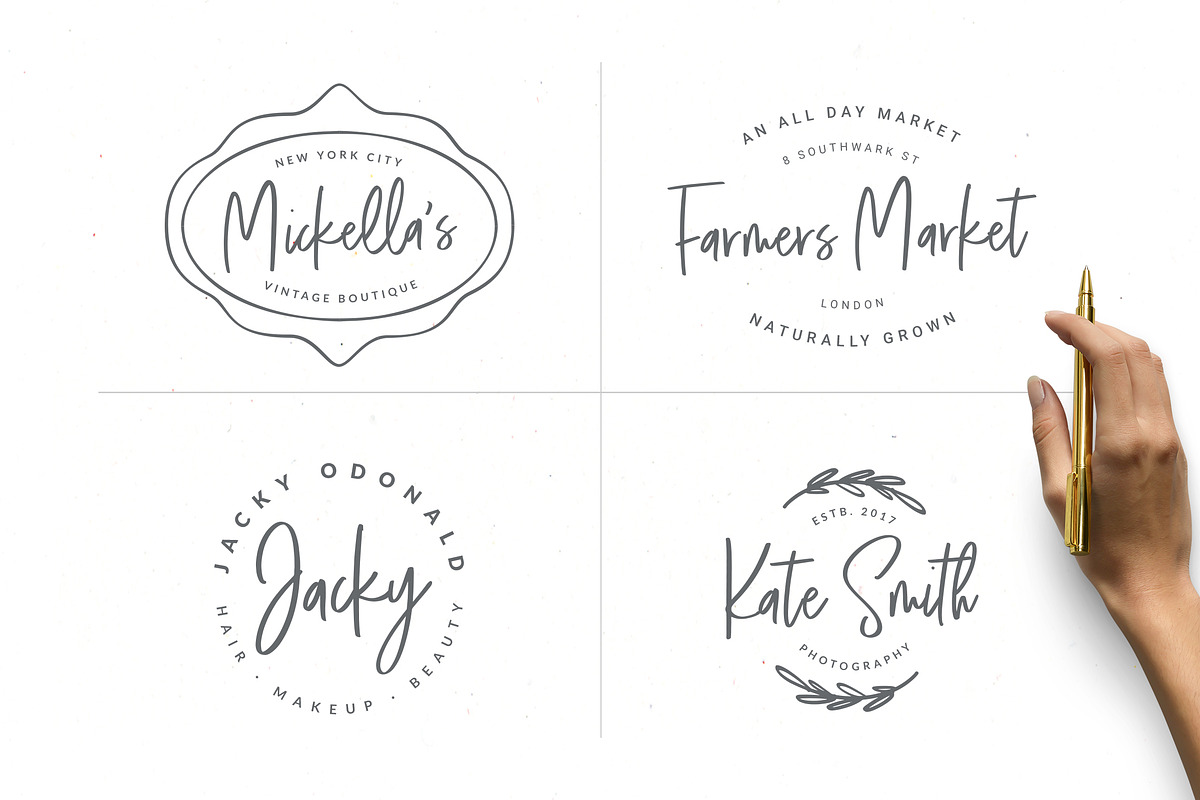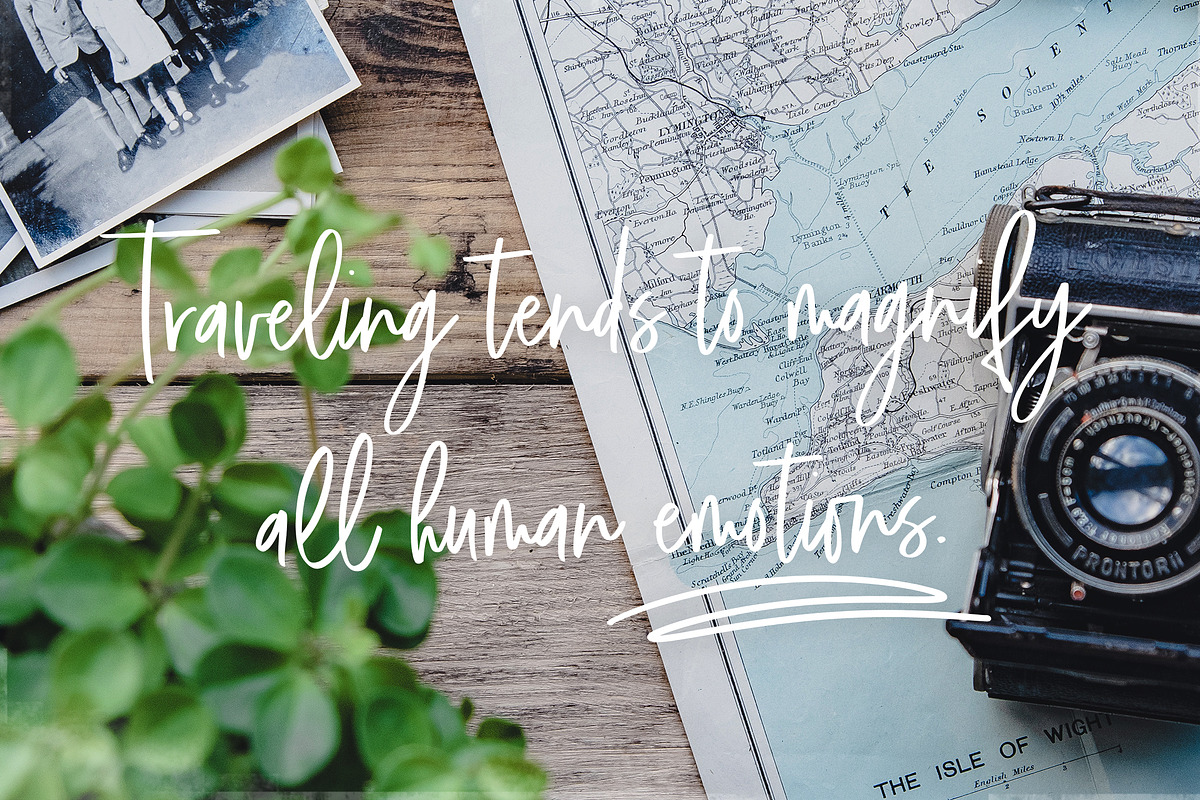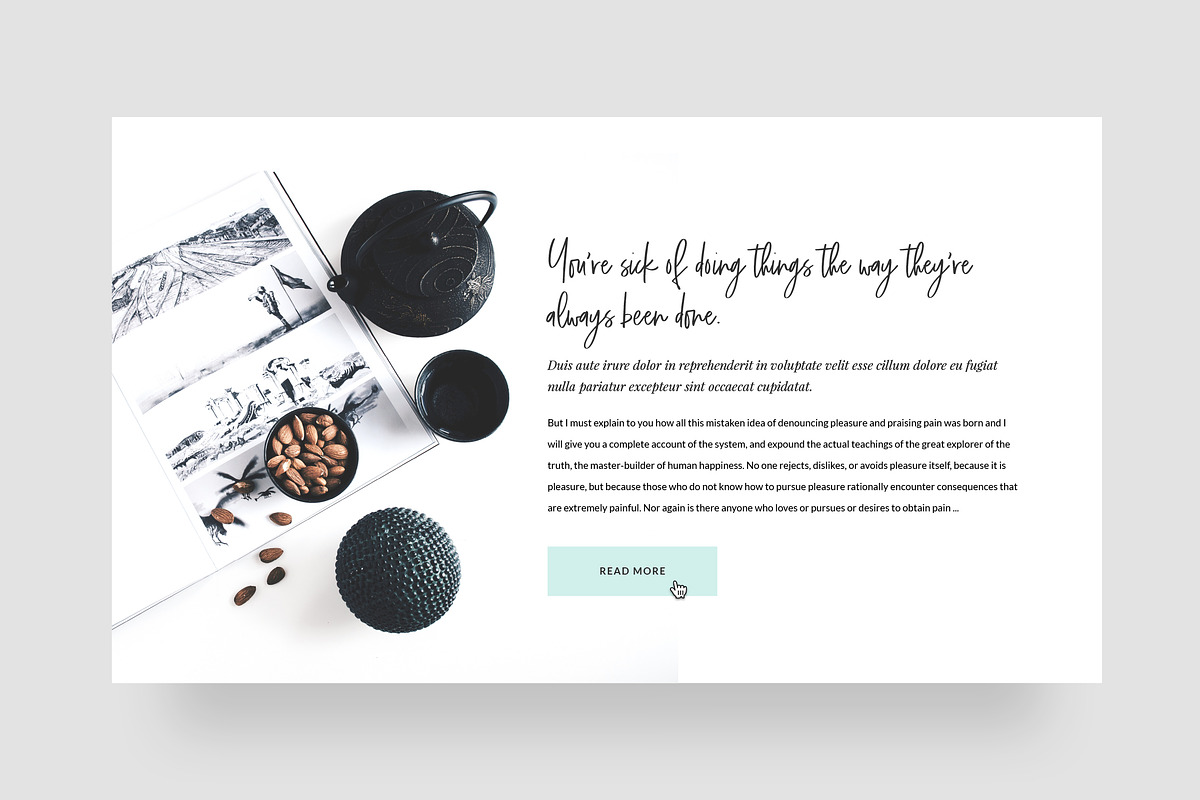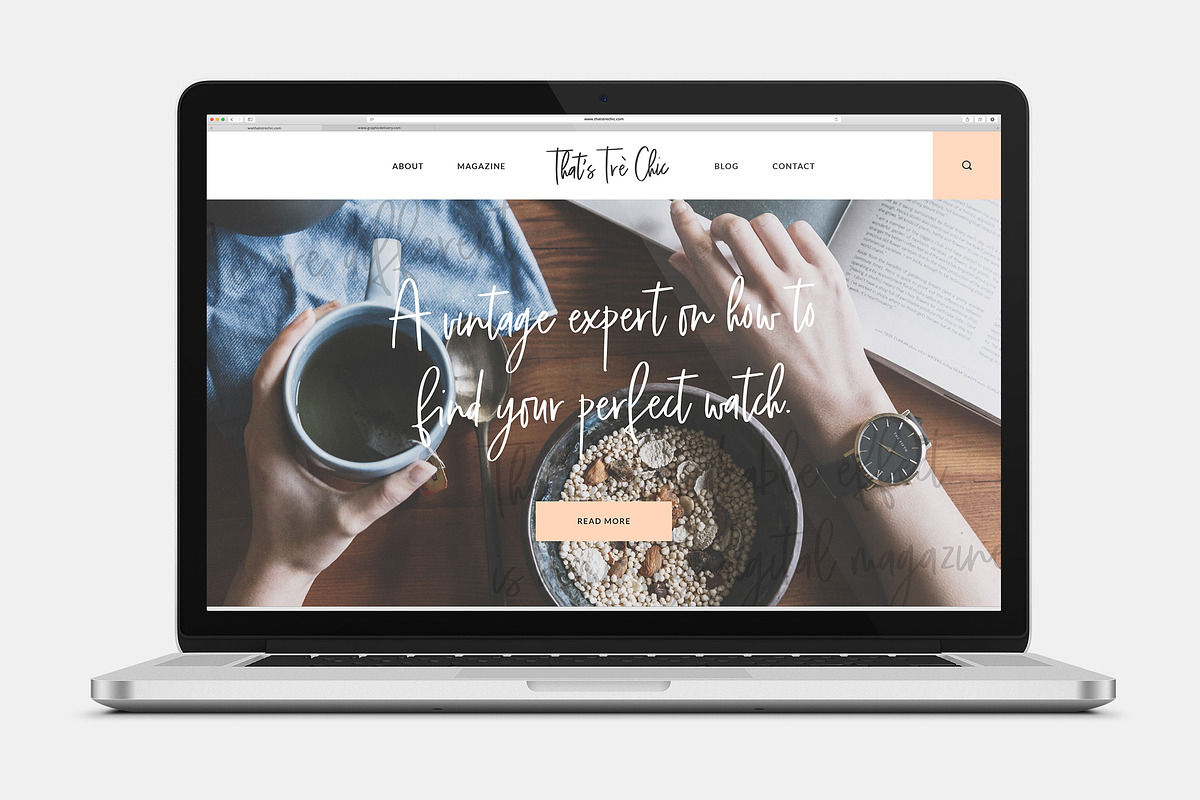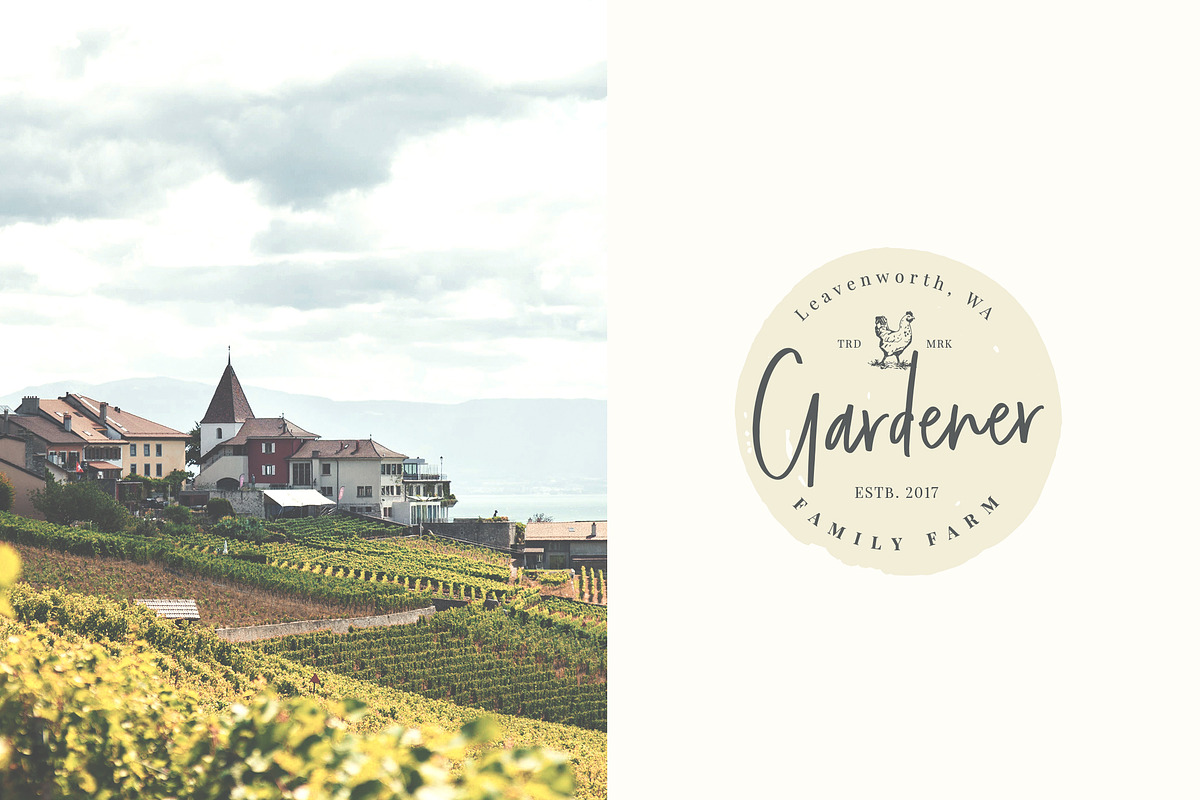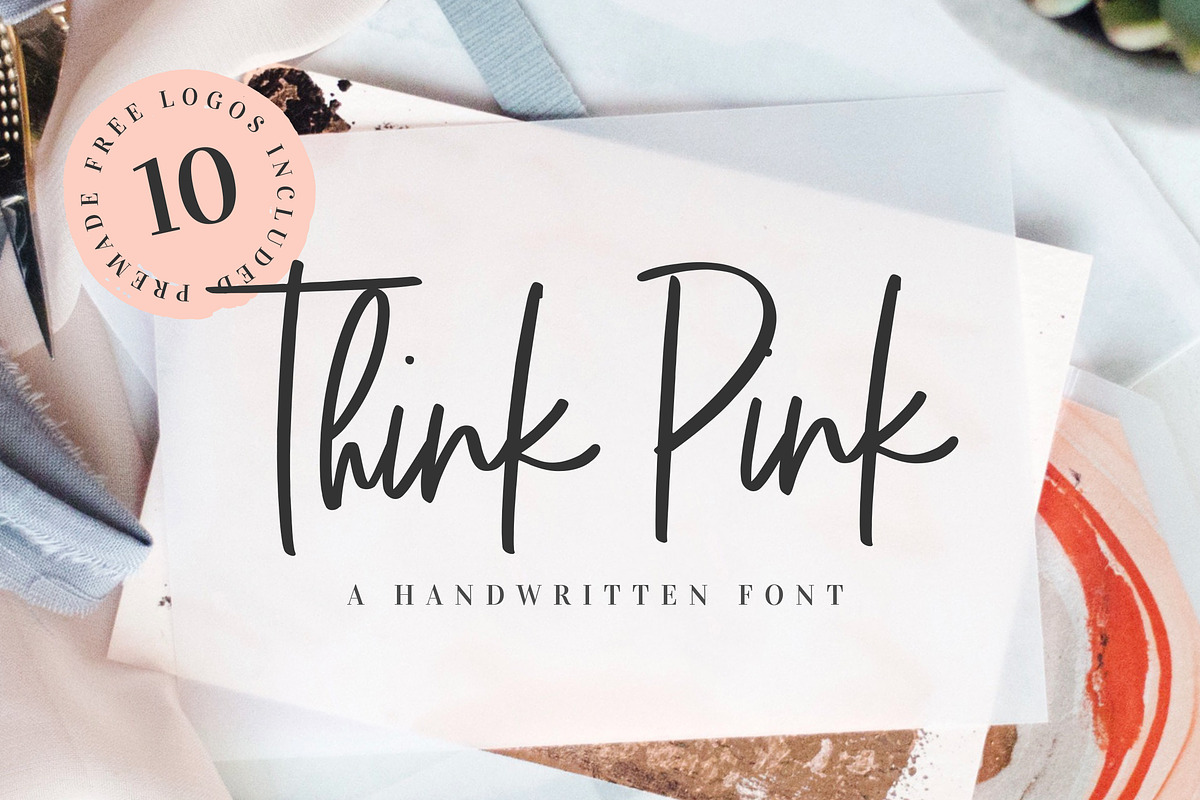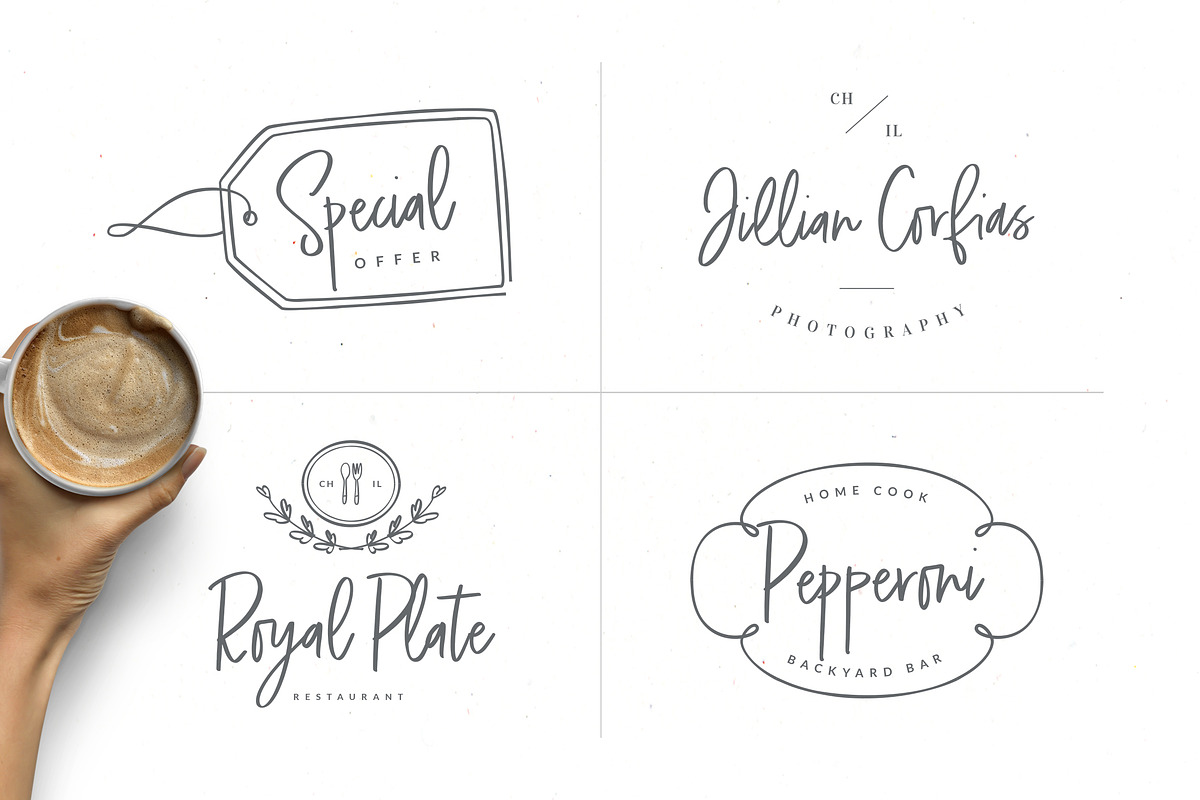
Think Pink Handwritten Font & Logos
Think Pink Handwritten Font is a unique, cool and modern handwritten font. It's hand look style makes it perfect for use in all your design projects be it logos, signatures, labels, packaging design, blog headlines. Using Think Pink will definitely make your text stand out.
Think Pink comes with upper and lowercase Basic Characters, Numbers, Marks and Punctuation. Diacritics are also available for Western and Central European Languages. As a feature you have also the standard Double Letters Ligature, Special Ligatures, Alternates, Swashes and Illustrations.